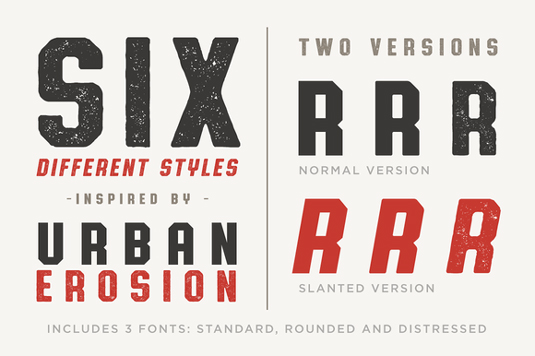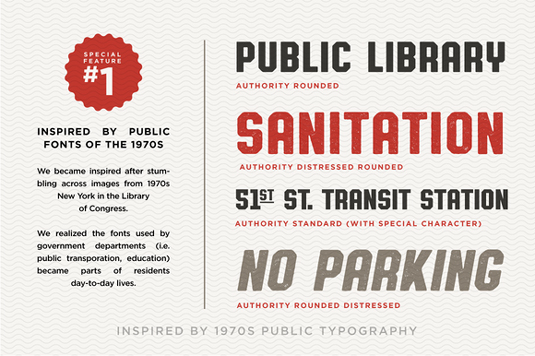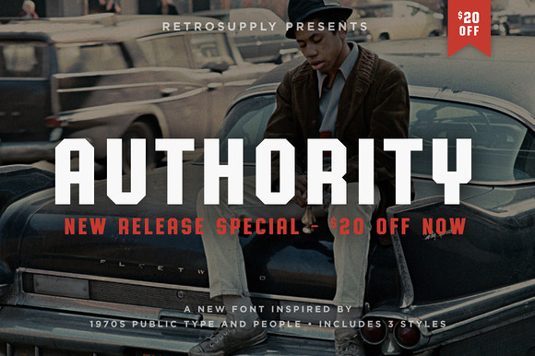
Font of the day: Authority
Authority by Dustin Lee
Kicking off our font of the day posts this week is Authority typeface, by designer Dustin Lee. "Inspired by public fonts in New York in the 1970s, Authority pays tribute to the almost unnoticed but powerful effect typefaces have on our live," Lee comments on Creative Market.
"From waiting to catch the next bus to work to the worn type on public mailboxes, type speaks loudly and softly all at once into our lives," Lee continues. "Use it for bold, striking headlines, subheads and logos and to bring historical strength to your work."